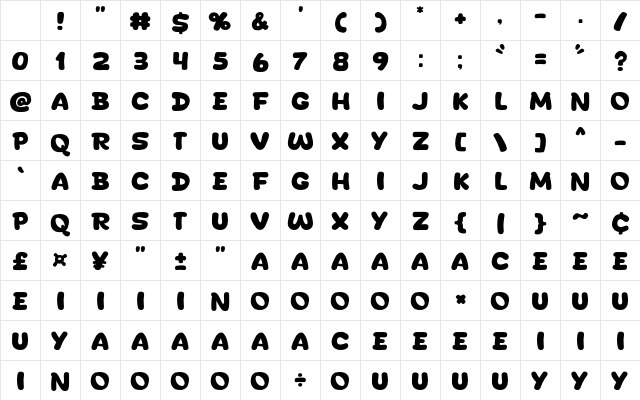
Willkids has an approachable, lighthearted character - its loose, expressive forms are well-suited to children's content, casual branding, and fun-first design.
Font Pairing: Pairs well with a rounded or humanist sans for body copy, maintaining the friendly tone without relying on Willkids to carry extended reading.
Pro Tip: Use Willkids at larger display sizes where its expressive character can land. Pair with a clean, simple sans for body copy to maintain readability.